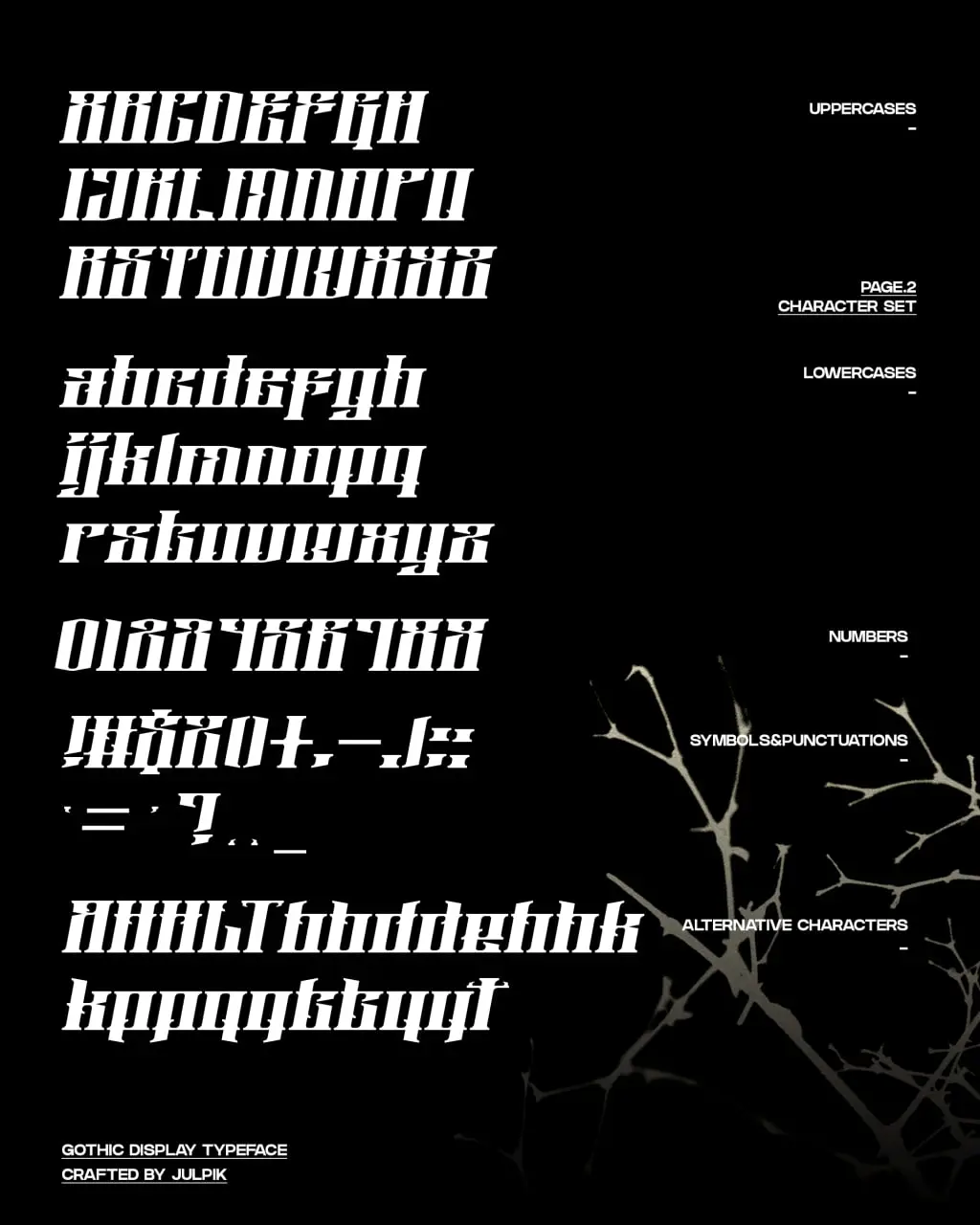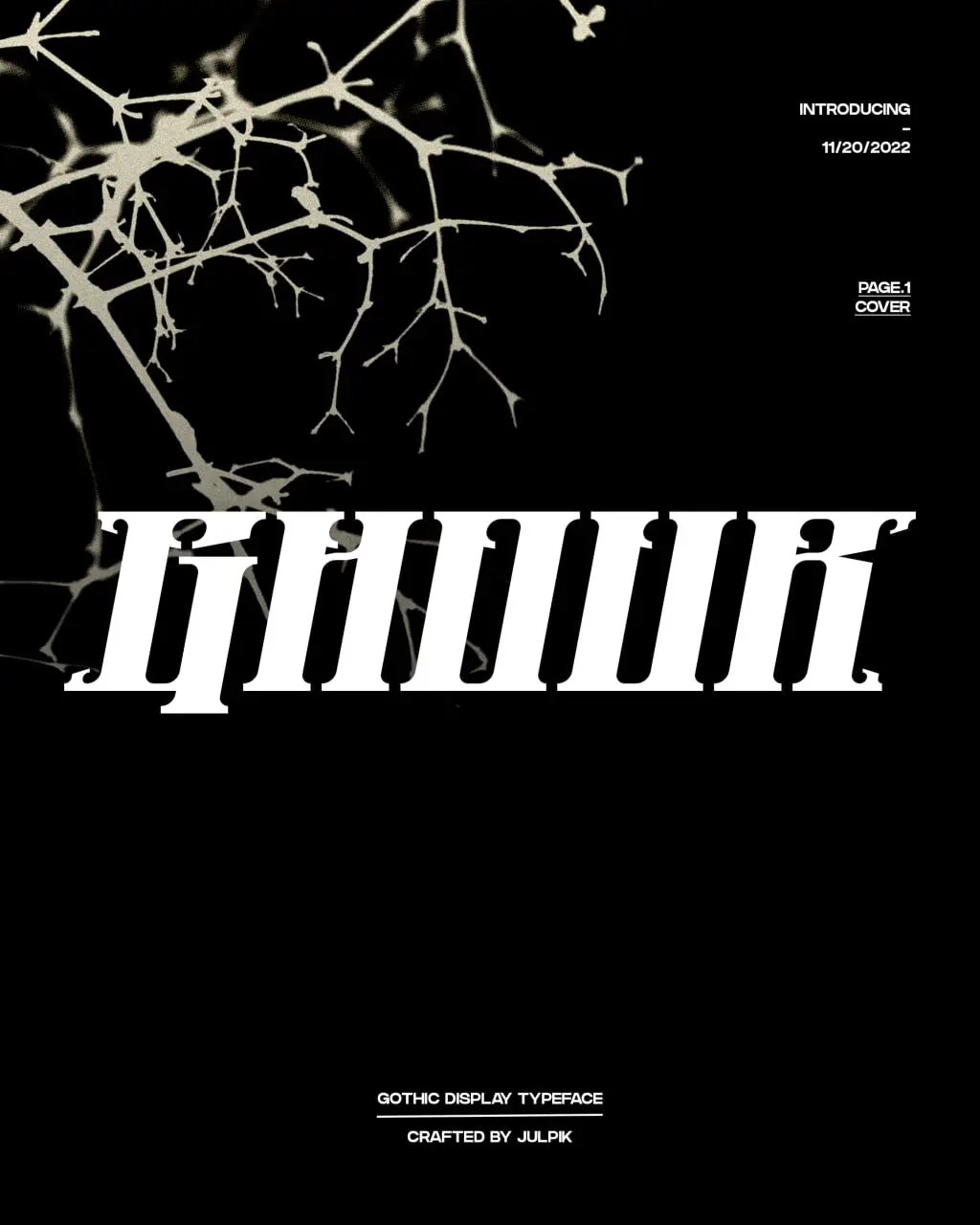
Ghour Gothic Display Typeface
The Ghour Gothic Display Typeface is a bold and striking font designed to make a statement. With its unique geometric shapes and sharp edges, this typeface is perfect for a variety of design projects, including branding, posters, and headlines.
• Ideal for creating eye-catching logos and branding materials.
• Use in print media for impactful posters and flyers.
• Perfect for digital applications, including websites and social media graphics.